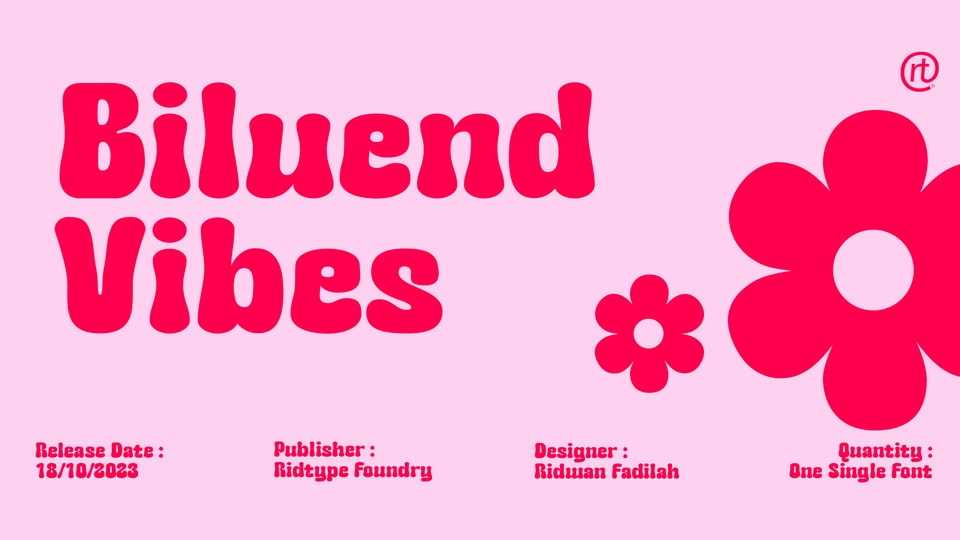
Download Biluend Vibes font, a typeface inspired by summer nuances that convey the long-awaited vacation of enjoying the summer atmosphere outdoors and spending time with friends, girlfriends, and family.
Designer: Ridwan Fadilah